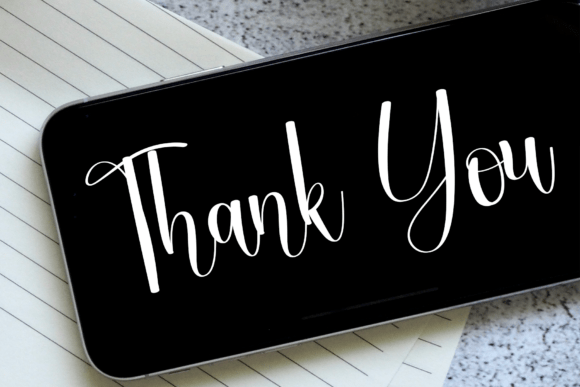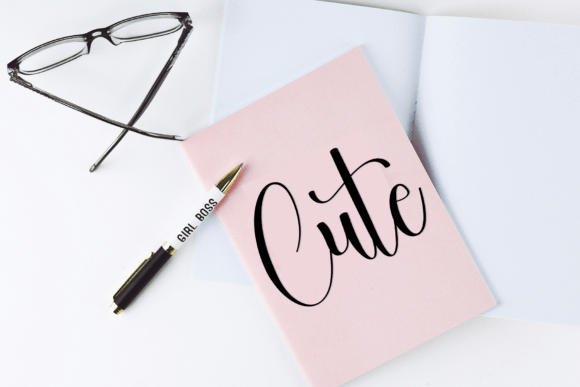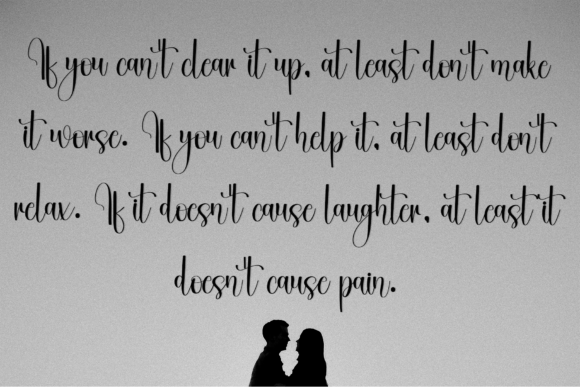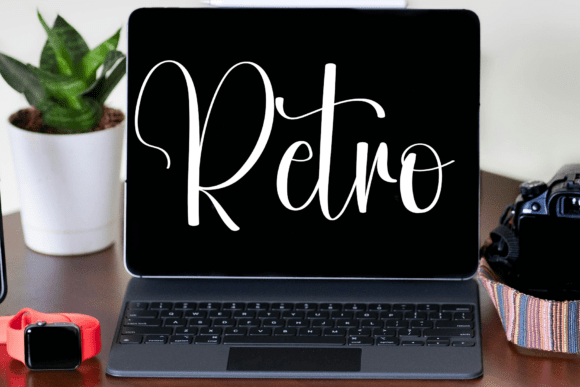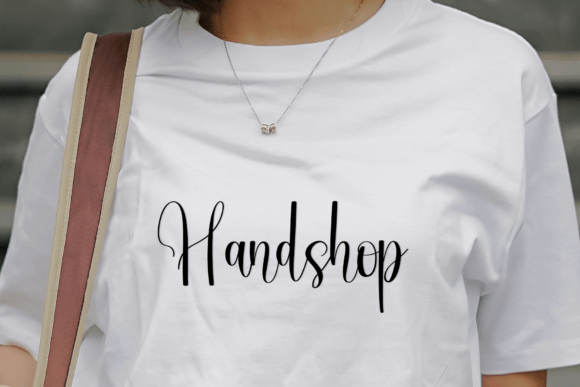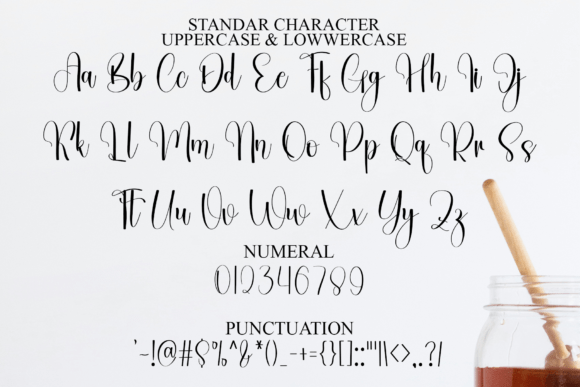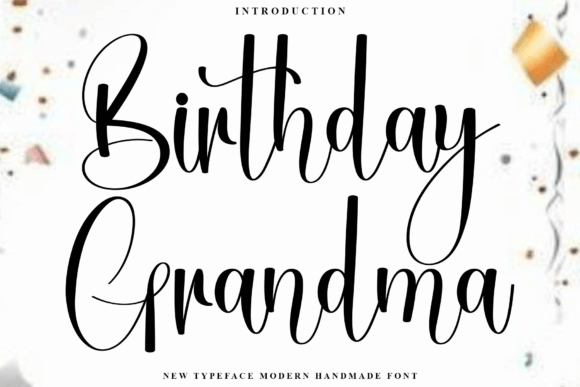
Introducing Birthday Grandma Font: The Perfect Addition to Your Design Projects
Are you looking for a font that exudes warmth, friendliness, and a touch of playfulness? Look no further than the Birthday Grandma Font! This casual and creative font is perfect for designers, crafters, and anyone looking to add a personal touch to their projects. In this article, we’ll dive into the features and benefits of the Birthday Grandma Font and explore how it can elevate your designs.
A Font that Feels like a Warm Hug
The Birthday Grandma Font is designed to evoke a sense of warmth and friendliness. Its round, playful strokes create a relaxed and approachable feel that’s perfect for personal projects, invitations, and social media graphics. Whether you’re designing a birthday card, a party invitation, or a social media post, this font is sure to make your audience feel welcome and included.
Charming, Hand-Drawn Aesthetic
One of the standout features of the Birthday Grandma Font is its charming, hand-drawn aesthetic. The font’s unique, hand-crafted look adds a fun and unique touch to any design. The irregularities and quirks of the hand-drawn letters make the font feel more personal and less like a generic, computer-generated font. This makes it perfect for designers and crafters who want to add a touch of personality to their work.
The Birthday Grandma Font is a versatile font that’s perfect for a wide range of design projects. Here are just a few ideas for how you can use this font:
- Birthday cards and invitations
- Party decorations and banners
- Personalized gifts and crafts
Tips for Using the Birthday Grandma Font
Here are a few tips for getting the most out of the Birthday Grandma Font:
- Use it in combination with other fonts to create a unique and eye-catching design
- Use it to create a sense of continuity and cohesion in your design
- Don’t be afraid to get creative and try new things – the Birthday Grandma Font is a versatile font that can be used in many different ways
The Birthday Grandma Font is a unique and versatile font that’s perfect for designers, crafters, and anyone looking to add a personal touch to their projects. Its charming, hand-drawn aesthetic and warm, friendly feel make it perfect for a wide range of design projects. With its standard PUA Encoded glyphs and compatibility with popular design software, it’s easy to get started with this font and start creating beautiful designs. So why not give it a try and see how it can elevate your designs?